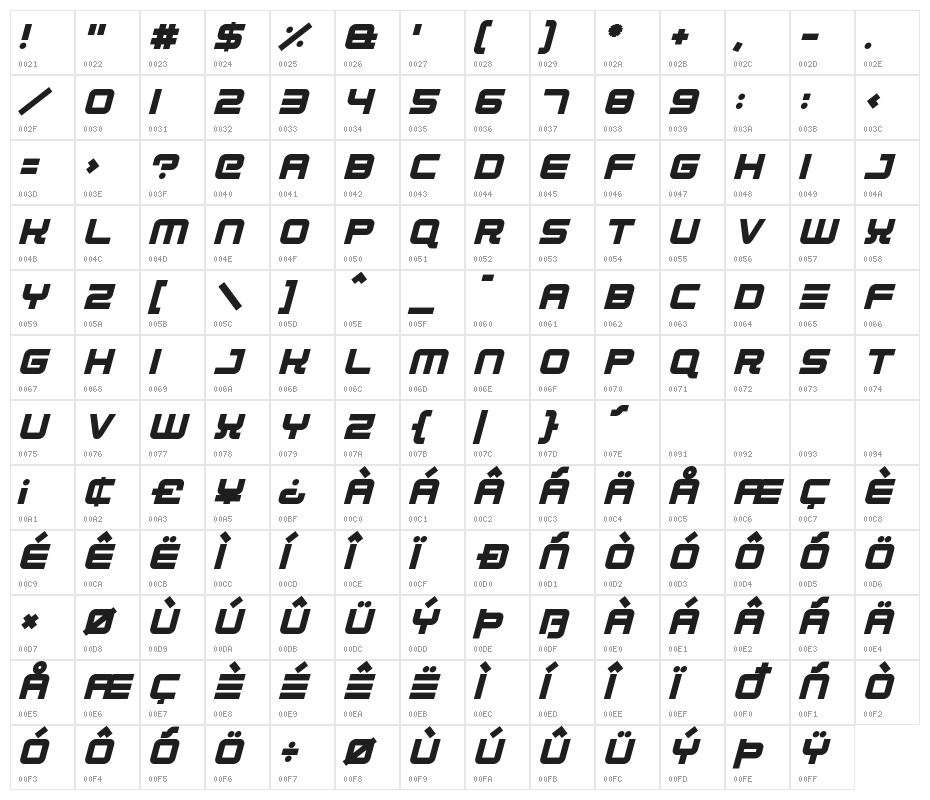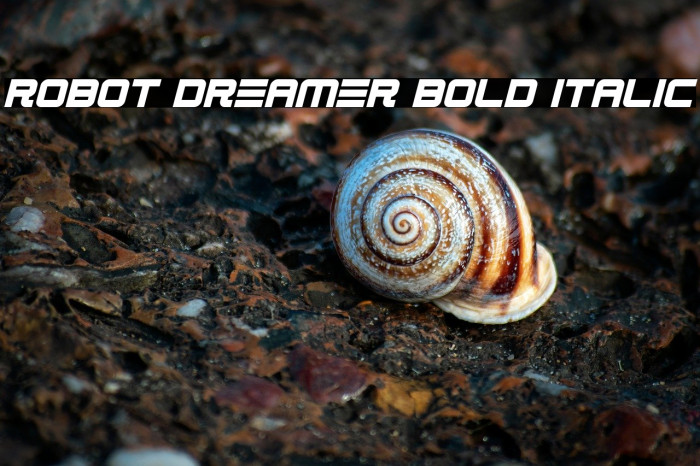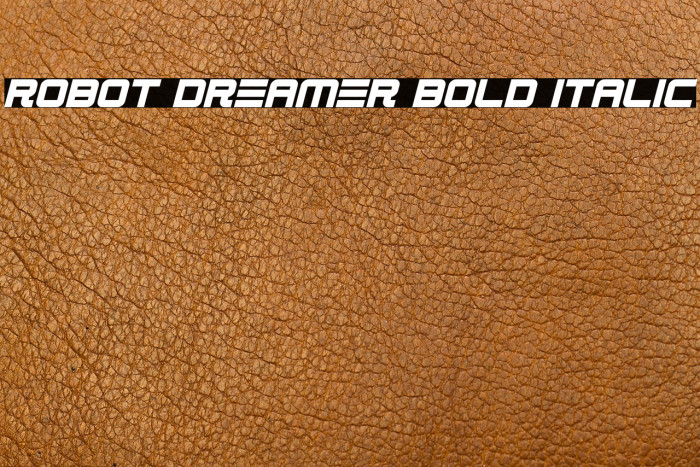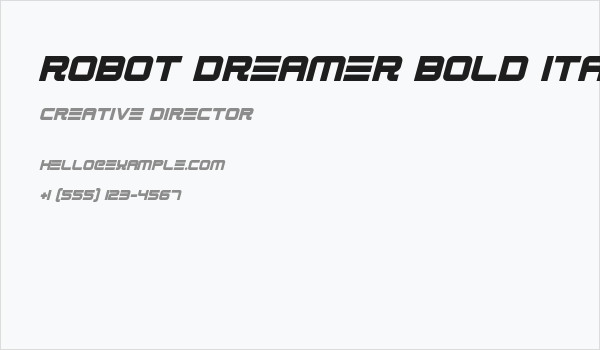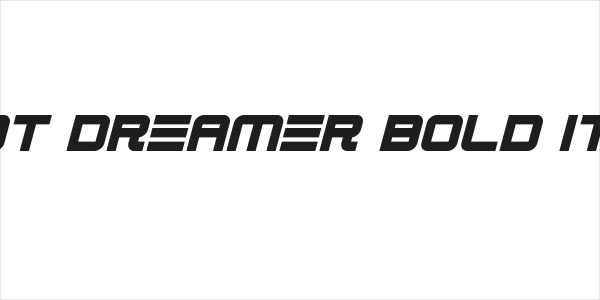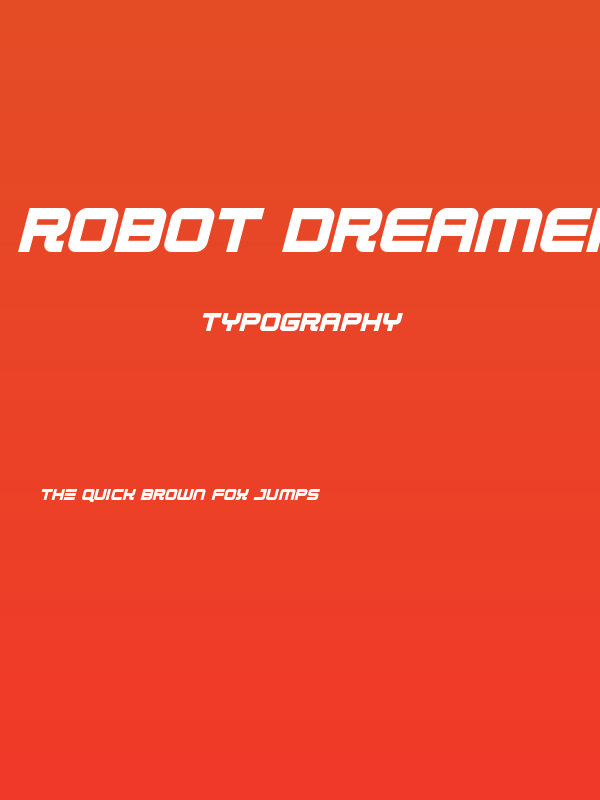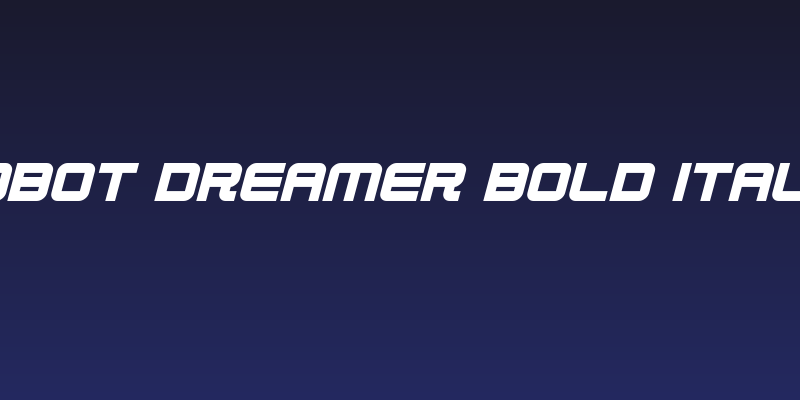
Robot Dreamer Bold Italic Font
Robot Dreamer Bold Italic Description
This font features a bold and italicized style with a futuristic and geometric design. The characters are slightly slanted, giving a dynamic and forward-moving appearance. The strokes are thick and consistent, providing a strong visual impact. The overall design is clean and modern, with a slight technological feel. The spacing between characters is tight, enhancing the compact and cohesive look of the text. This font is well-suited for projects that require a bold statement and a modern aesthetic.
| Proposed Projects | Ideal for technology branding, sci-fi posters, video game titles, and modern advertising. |